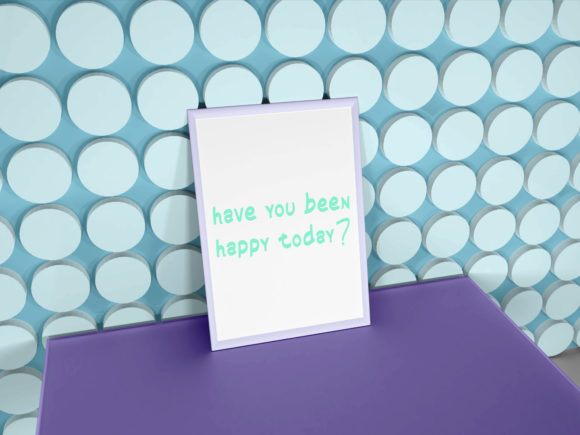
Happy Sunday Font: Add a Whimsical Touch to Your Designs
Are you looking for a font that can add a playful and charming touch to your design projects? Look no further than the Happy Sunday font! This beautiful and unique font is perfect for designers and crafters who want to create eye-catching and whimsical designs. In this article, we’ll take a closer look at the Happy Sunday font, its features, and how you can use it to elevate your designs.
What is Happy Sunday Font?
Happy Sunday is a beautiful and playful font with a unique charm. It will add a whimsical touch to any design project you wish to create! This font is designed to bring a sense of joy and playfulness to your designs, making it perfect for projects that require a lighthearted and carefree feel. Whether you’re working on a graphic design project, crafting a handmade card, or creating digital content, the Happy Sunday font is sure to impress.
Key Features of Happy Sunday Font
The Happy Sunday font comes with several key features that make it stand out from other fonts. Some of its notable features include:
- Unique and Playful Design: The Happy Sunday font has a unique and playful design that is sure to grab attention. Its curly and swirly lines give it a whimsical feel that’s perfect for designs that require a lighthearted touch.
- High-Quality Letters: The font features high-quality letters that are clear and easy to read. This makes it perfect for use in a variety of design projects, from posters and flyers to digital content and handmade crafts.
- Multilingual Support: The Happy Sunday font supports multiple languages, making it a great choice for designers and crafters who work with international clients or create content for a global audience.
How to Use Happy Sunday Font in Your Designs
The Happy Sunday font is versatile and can be used in a variety of design projects. Here are some ideas on how you can use it:
- Graphic Design Projects: Use the Happy Sunday font in your graphic design projects, such as posters, flyers, brochures, and social media graphics. Its playful design makes it perfect for creating eye-catching and engaging visuals.
- Handmade Crafts: Add a personal touch to your handmade crafts, such as cards, scrapbook pages, and journal entries, with the Happy Sunday font. Its whimsical design is sure to make your crafts stand out.
- Digital Content: Use the Happy Sunday font in your digital content, such as blog posts, social media updates, and email newsletters. Its playful design can help add a lighthearted touch to your content and make it more engaging.
Tips for Using Happy Sunday Font Effectively
Here are some tips for using the Happy Sunday font effectively in your designs:
- Pair it with Other Fonts: Pair the Happy Sunday font with other fonts to create a unique and visually appealing design. You can use it as a headline font and pair it with a simpler font for the body text.
- Experiment with Colors: Experiment with different colors to find the perfect combination that works with the Happy Sunday font. You can use bright and bold colors to match the playful design of the font.
- Use it Sparingly: Use the Happy Sunday font sparingly to avoid overwhelming your design. You can use it for headings or titles and use a simpler font for the body text.
The Happy Sunday font is a beautiful and playful font that can add a whimsical touch to any design project. Its unique design, high-quality letters, and multilingual support make it a great choice for designers and crafters. With its versatility and flexibility, you can use it in a variety of design projects, from graphic design to handmade crafts and digital content. So why not give it a try and see how it can elevate your designs?